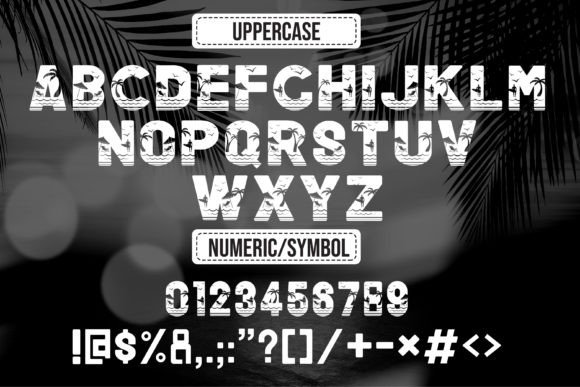
Introducing Cool Summer Font: The Perfect Addition to Your Design Arsenal
Are you tired of using the same old fonts in your designs? Look no further! Cool Summer Font is here to take your creative projects to the next level. This thick lettered and incredibly unique decorative font is perfect for designers and crafters looking to add a touch of personality to their work.
What Makes Cool Summer Font So Special?
Cool Summer Font is a game-changer for anyone looking to add some excitement to their designs. Its thick, bold letters are sure to grab attention and make your projects stand out. Whether you’re working on a logo, a poster, or a social media graphic, this font is sure to make a statement.
Unique and Versatile
One of the best things about Cool Summer Font is its versatility. It can be used for a wide range of projects, from fun and playful designs to more serious and professional ones. The font’s unique style makes it perfect for:
- Social media graphics and ads
- Party invitations and decorations
Brighten Up Your Crafty Ideas
As a crafter or DIY enthusiast, you know how important it is to have the right tools and resources to bring your ideas to life. Cool Summer Font is the perfect addition to your design arsenal, allowing you to add a professional touch to your projects. Whether you’re making signs, banners, or other decorative items, this font is sure to brighten up your crafty ideas and make them stand out.
Easy to Use and Customize
Tips for Using Cool Summer Font
Here are a few tips for using Cool Summer Font in your designs:
- Use it as a statement font: Cool Summer Font is bold and eye-catching, making it perfect for use as a statement font. Try using it for headings or titles to add emphasis and draw attention.
- Pair it with other fonts: Cool Summer Font pairs well with a variety of other fonts, including script fonts, sans-serif fonts, and serif fonts. Experiment with different pairings to find the one that works best for your project.
- Experiment with colors: Cool Summer Font looks great in a variety of colors, from bright and bold to more muted and pastel. Try experimenting with different colors to find the one that works best for your project.
Cool Summer Font is a unique and versatile decorative font that’s perfect for designers and crafters looking to add some excitement to their projects. Its thick, bold letters and incredibly unique style make it sure to grab attention and make your designs stand out. Whether you’re working on a logo, a poster, or a crafty DIY project, Cool Summer Font is the perfect addition to your design arsenal.